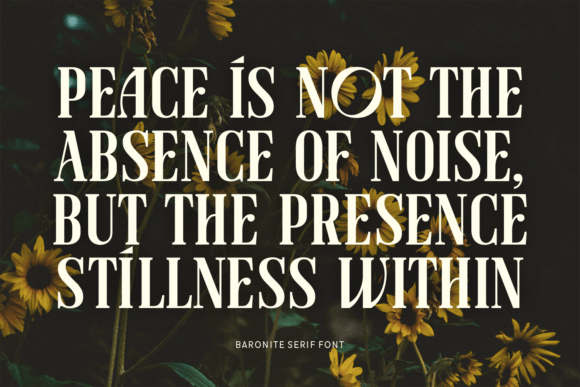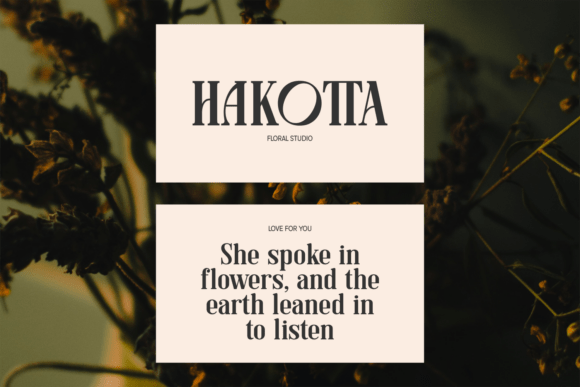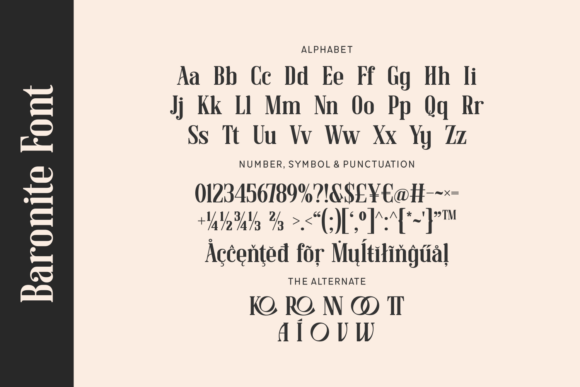
Introducing Baronite Font: The Epitome of Theatrical Flair and Vintage Sophistication
In the realm of typography, few fonts manage to convey the perfect blend of drama, elegance, and sophistication. Baronite Font, however, stands out as a remarkable exception. This bold serif typeface is meticulously crafted to radiate a sense of theatrical flair and vintage sophistication, making it an ideal choice for designers and crafters looking to add a touch of grandeur to their projects.
Design Characteristics of Baronite Font
Baronite’s design is characterized by its high-contrast strokes, which provide the font with a distinctive elegance and refinement. The artful ligatures and stylish alternates further enhance its aesthetic appeal, allowing designers to create visually captivating text that commands attention. The high contrast between thick and thin strokes adds a dynamic quality to the font, making it perfect for headlines, posters, and editorial layouts where visual impact is crucial.
Versatility and Applications
One of the key strengths of Baronite Font is its versatility. While it excels in display settings, its legibility and stylish appearance also make it suitable for use in editorial designs, such as magazines, newspapers, and even book titles. The font’s vintage sophistication lends a classic touch to any project, making it an excellent choice for branding and advertising materials where establishing a strong visual identity is paramount.
Why Choose Baronite Font?
For designers and crafters seeking to elevate their projects with a unique and compelling typographic voice, Baronite Font offers several compelling reasons:
- Dramatic Presence: Baronite’s bold and elegant design ensures that any text stands out, capturing the audience’s attention and conveying a sense of drama and sophistication.
- Vintage Appeal: The font’s classic serif design, combined with its modern touches, gives it a timeless quality that works well in both traditional and contemporary design contexts.
- Creative Flexibility: With its range of ligatures, alternates, and high-contrast strokes, Baronite offers designers the flexibility to experiment with different styles and effects, ensuring that their work remains fresh and engaging.
Tips for Using Baronite Font Effectively
To maximize the impact of Baronite Font in your designs, consider the following tips:
- Pair with Simplicity: To maintain focus on the dramatic qualities of Baronite, pair it with simpler sans-serif fonts for body text or supporting elements.
- Experiment with Ligatures: Take advantage of Baronite’s ligatures and alternates to add visual interest and create unique typographic compositions.
- Adjust Contrast: Play with the contrast settings to enhance the font’s high-contrast strokes, making it even more striking and attention-grabbing.
Baronite Font is a powerful tool for designers and crafters aiming to infuse their projects with a sense of drama, elegance, and sophistication. Its unique blend of vintage charm and modern flair, combined with its versatility and creative potential, makes it an excellent addition to any designer’s toolkit. Whether you’re working on a poster, editorial layout, or branding project, Baronite is sure to bring a commanding presence and timeless style to your work.
Embrace the grandeur and creativity that Baronite Font has to offer, and discover new ways to make your designs stand out in a crowded visual landscape.